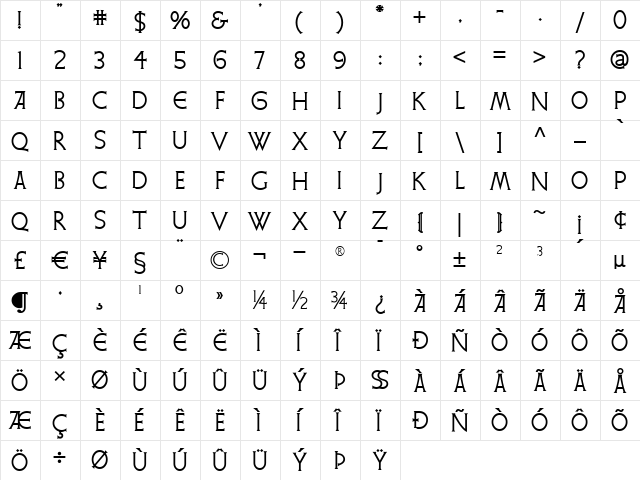
Quadrivium NF Regular
| Foundry | Nick Curtis |
Quadrivium NF takes a measured approach to typography — its balanced proportions and neutral character make it a reliable workhorse for both digital and print work.